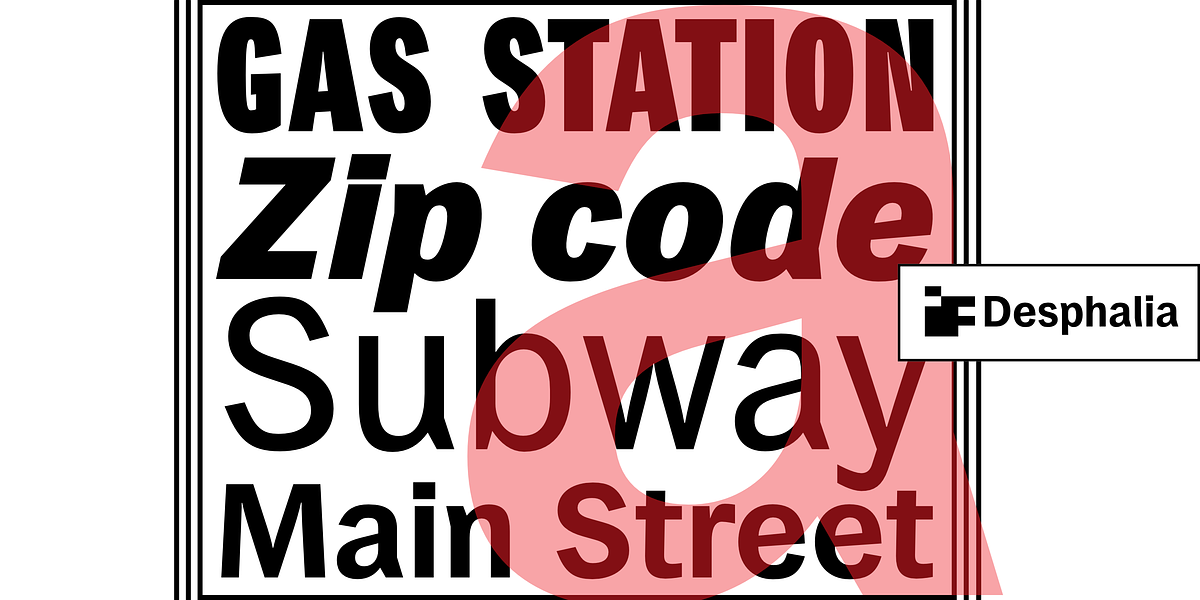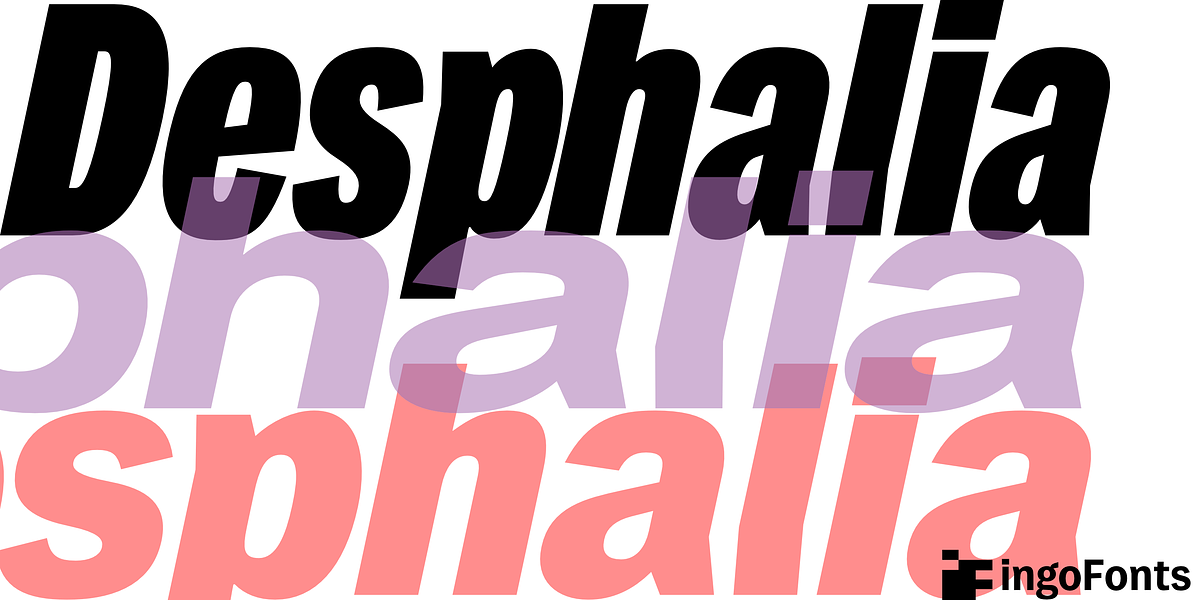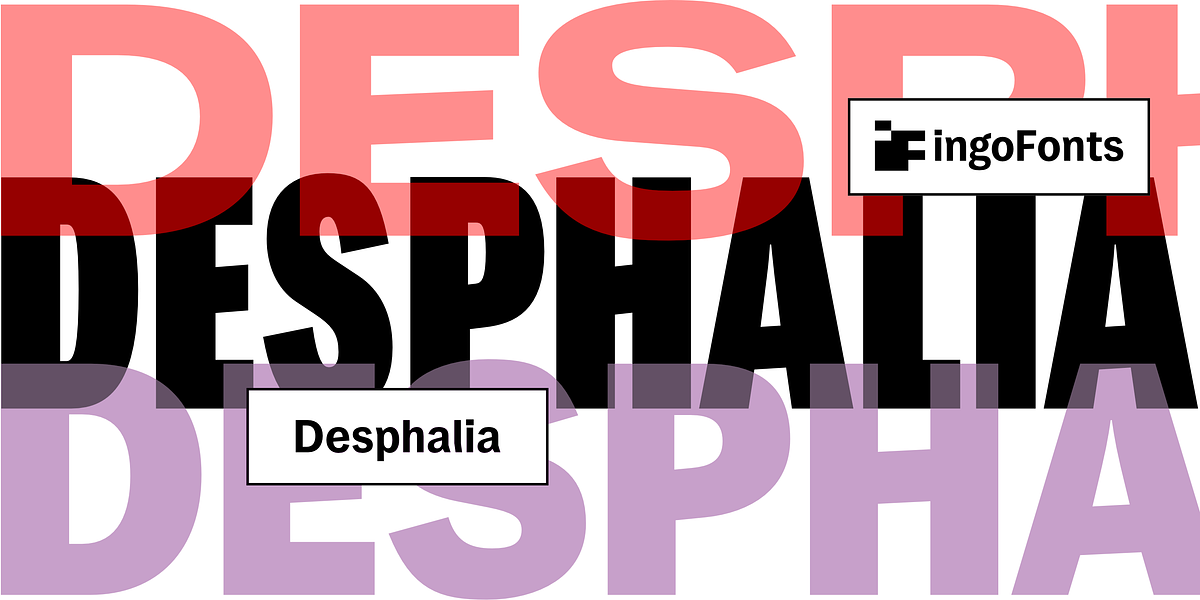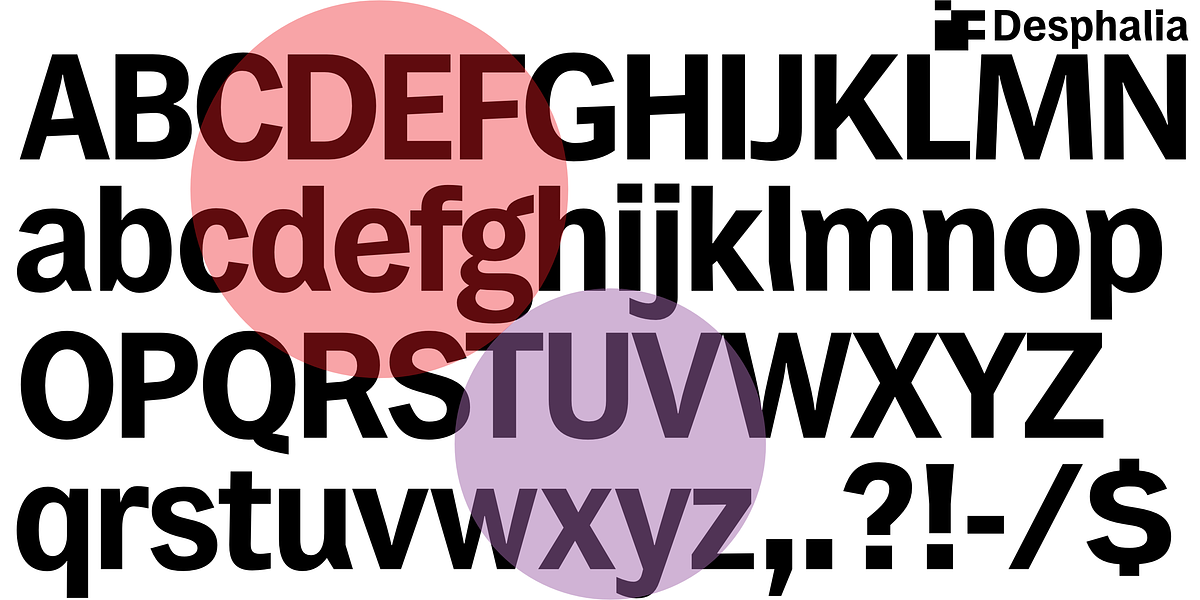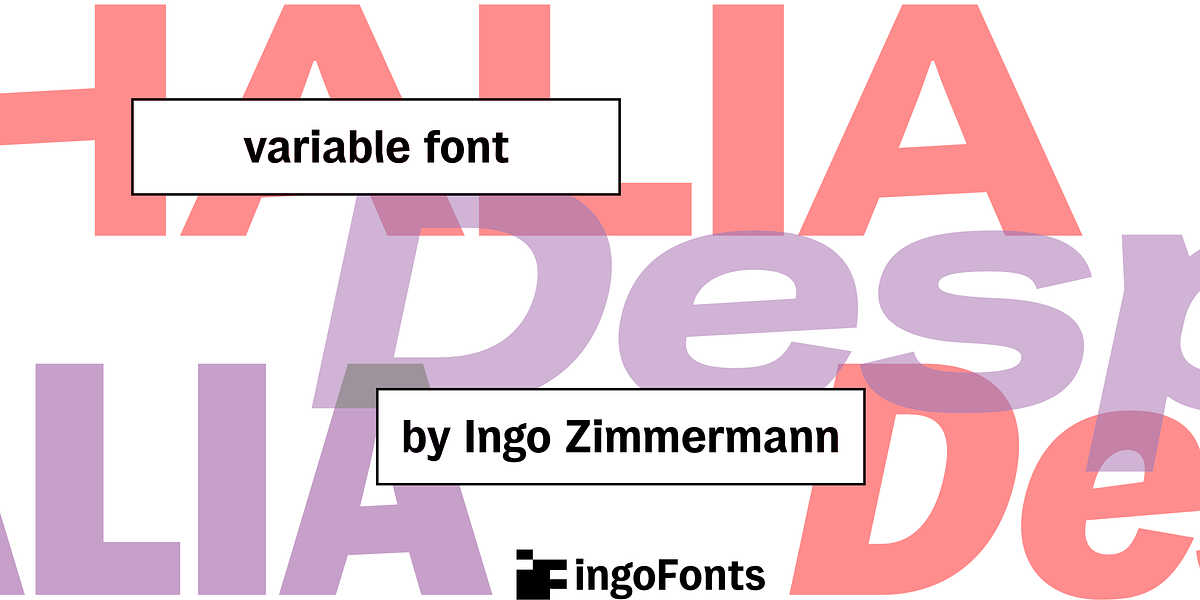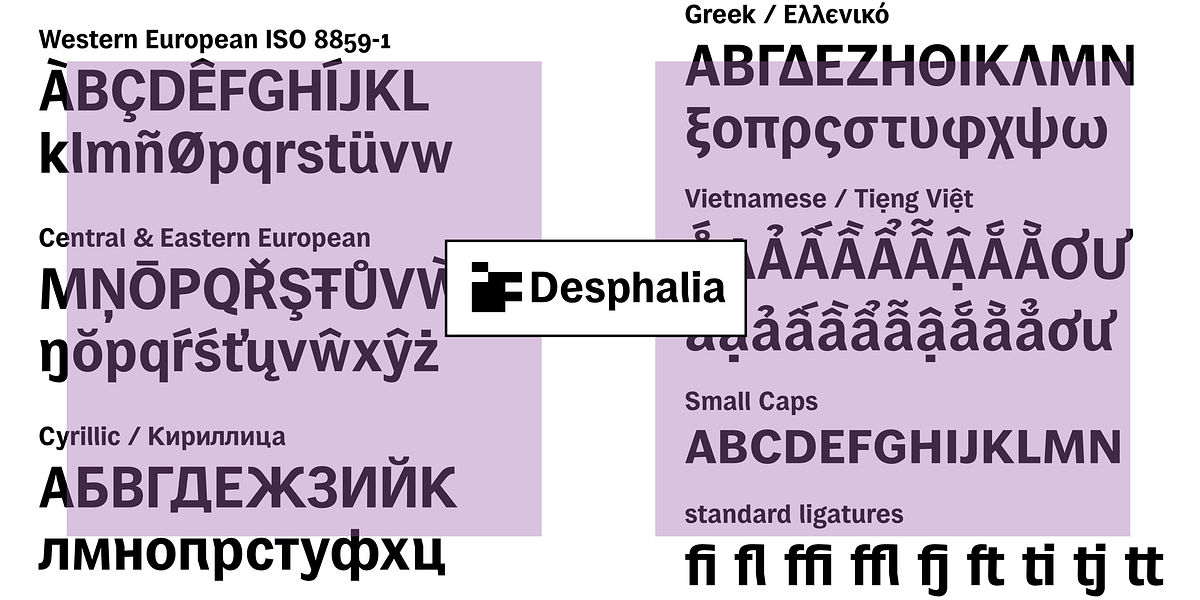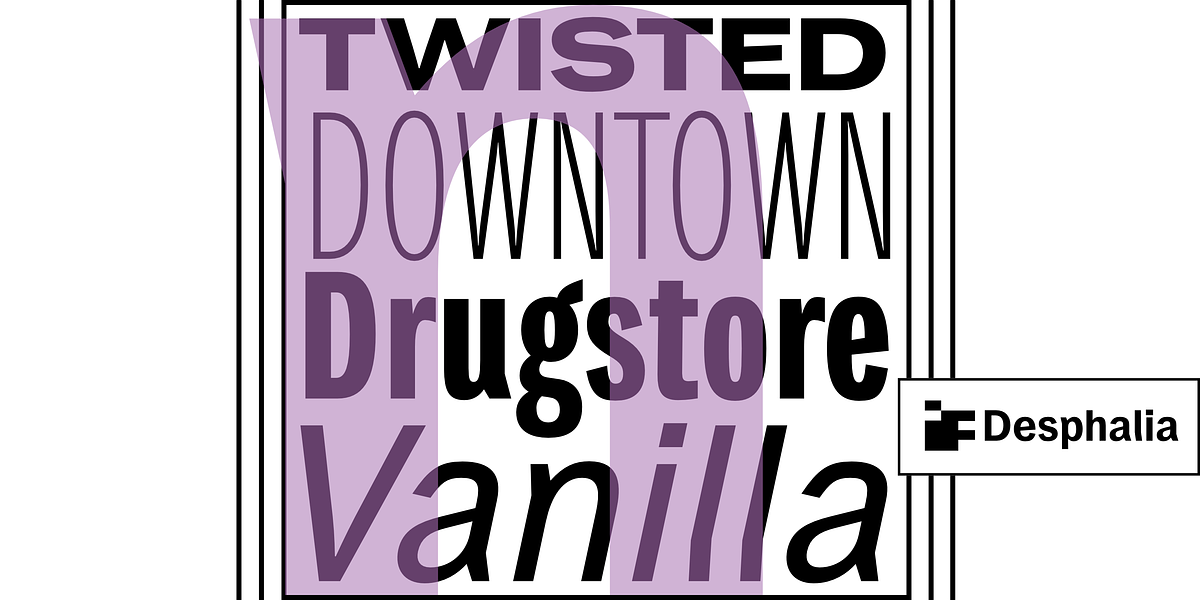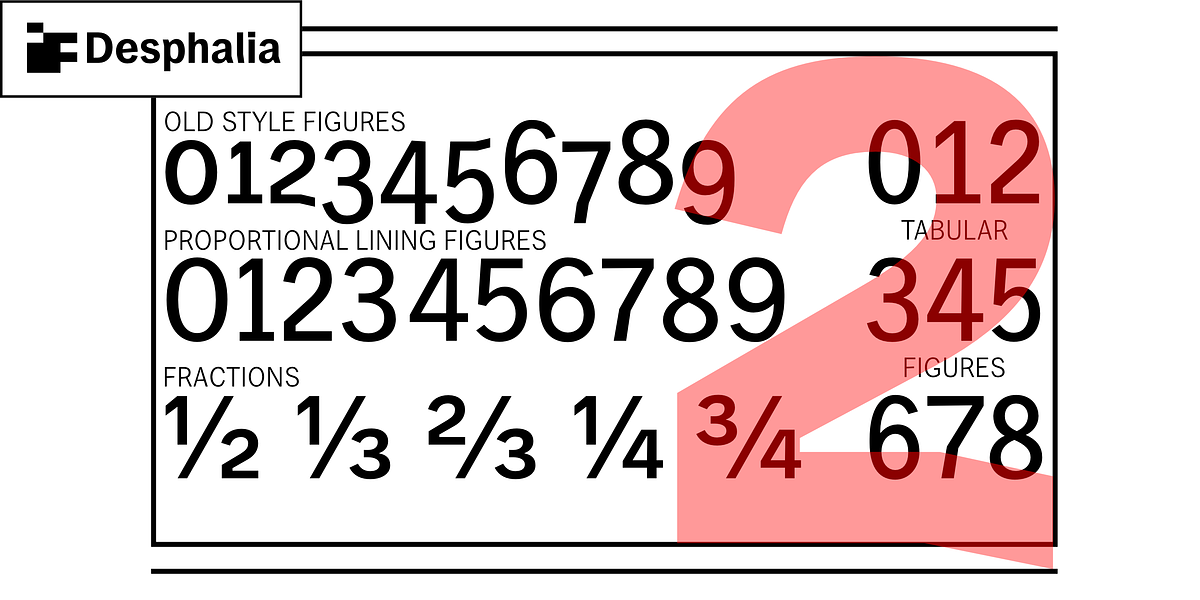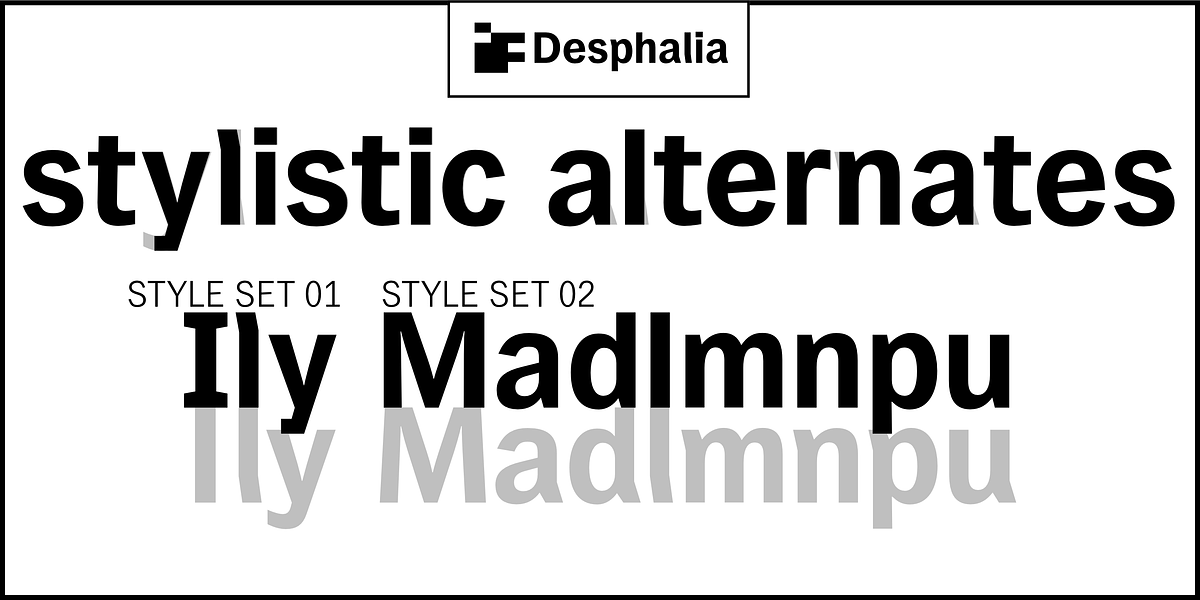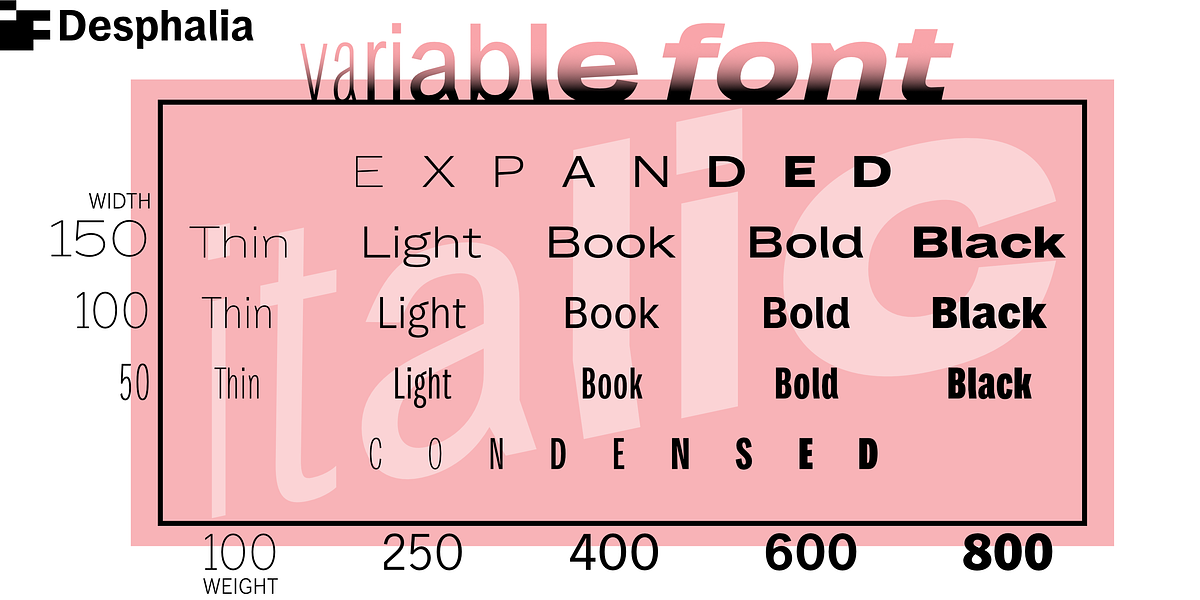
Desphalia
Desphalia is a neo-grotesque sans serif font inspired by classic American typefaces like Franklin Gothic and News Gothic. It features a high x-height and distinctive slanted strokes on some lowercase letters, giving it a unique personality. The font comes in a range of weights and widths, including a variable font option for ultimate flexibility. Desphalia also offers alternate characters and stylistic sets to further customize its appearance.